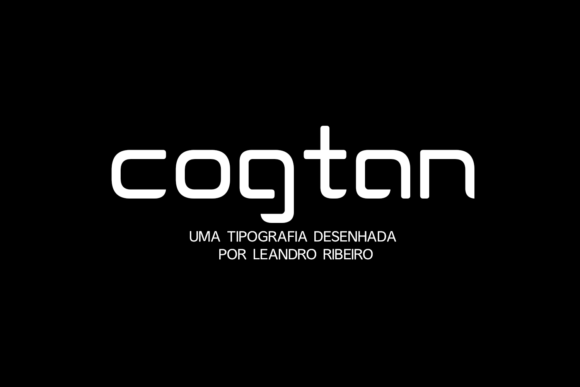
Cogtan Font: A Geometric Sans Serif for Modern Designs
In the world of typography, fonts play a crucial role in conveying messages, expressing emotions, and creating visual identities. For designers and crafters, finding the perfect font can be a daunting task. However, if you’re looking for a cool and geometric styled sans serif font, look no further than Cogtan Font. In this article, we’ll explore the features, uses, and benefits of Cogtan Font, and why it’s perfect for your next design project.
What is Cogtan Font?
Cogtan Font is a modern sans serif font that boasts a geometric style, making it perfect for designs that require a clean, minimalist, and sophisticated look. Its unique design elements make it stand out from other fonts, and its versatility allows it to be used in a wide range of applications.
Key Features of Cogtan Font
- Geometric Style: Cogtan Font features a geometric style that gives it a modern and sleek look.
- Sans Serif: The font is sans serif, making it perfect for designs that require a clean and minimalist look.
- Cool and Modern: Cogtan Font has a cool and modern vibe that makes it perfect for designs that require a fresh and contemporary look.
- Highly Versatile: The font can be used in a wide range of applications, from product packaging to branding projects, magazine covers, social media, and more.
Uses of Cogtan Font
Cogtan Font is perfect for a variety of design projects, including:
- Product Packaging: The font’s geometric style and modern look make it perfect for product packaging designs that require a clean and sophisticated look.
- Branding Projects: Cogtan Font can be used to create a strong visual identity for brands that require a modern and sleek look.
- Magazine Covers: The font’s unique design elements make it perfect for magazine covers that require a fresh and contemporary look.
- Social Media: Cogtan Font can be used to create engaging social media graphics that require a modern and cool look.
- Wedding Designs: The font’s elegant and sophisticated look makes it perfect for wedding designs, such as wedding invitations and wedding stationery.
Benefits of Using Cogtan Font
Using Cogtan Font in your design projects offers several benefits, including:
- Unique Look: Cogtan Font has a unique design that sets it apart from other fonts, making your designs stand out.
- Versatility: The font can be used in a wide range of applications, making it a great addition to your font library.
- Ease of Use: Cogtan Font is easy to use and can be easily integrated into your design projects.
- High-Quality: The font is high-quality, making it perfect for professional designs.
Tips for Using Cogtan Font
Here are some tips for using Cogtan Font in your design projects:
- Pair it with Other Fonts: Cogtan Font can be paired with other fonts to create a unique and interesting look.
- Experiment with Colors: The font looks great in a variety of colors, so experiment with different colors to find the one that works best for your design.
- Use it for Headings: Cogtan Font is perfect for headings, so use it to create bold and eye-catching headings.
- Use it for Body Text: The font is also great for body text, so use it to create clean and easy-to-read text.
Cogtan Font is a modern sans serif font that boasts a geometric style, making it perfect for designs that require a clean, minimalist, and sophisticated look. Its versatility, unique design elements, and ease of use make it a great addition to any design project. Whether you’re a designer or crafter, Cogtan Font is a great choice for your next project. So, download Cogtan Font today and take your designs to the next level!